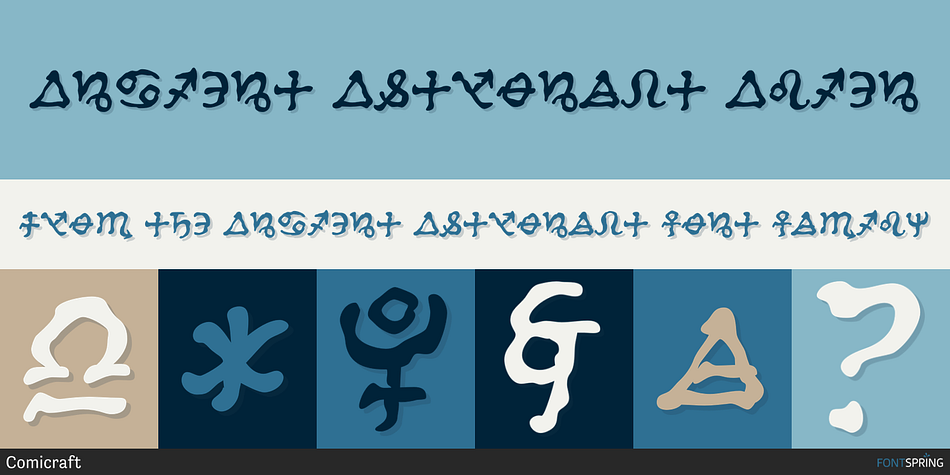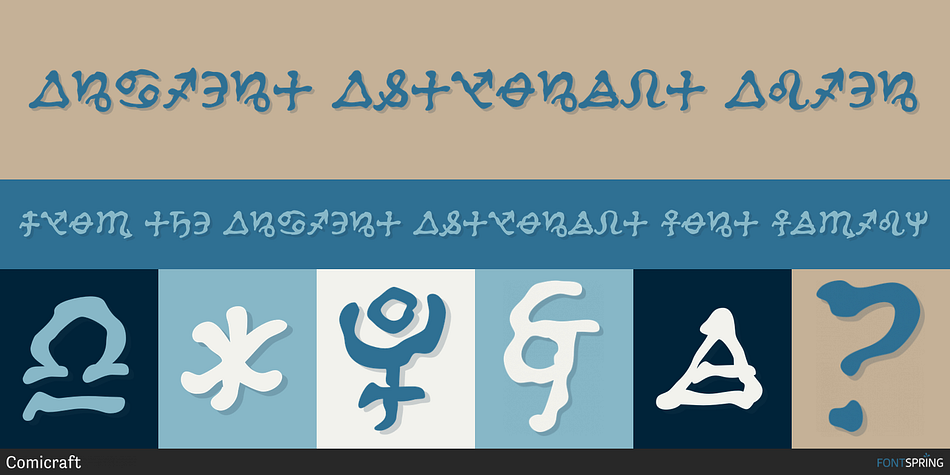
Ancient Astronaut Alien
Designed by John Roshell, Ancient Astronaut is a novelty and dingbat font family. This typeface has three styles and was published by Comicraft.
Are you in search of Ancient Astronauts? Extraterrestrial beings who came from the 12th planet to influence human cultures, technologies and religions? They’re here! They visited our Earth prehistorically and they didn’t just make contact with humans—they gave birth to our entire race!
Some believe they are a secret group of Reptiloids who still control humanity! Their agents live amongst us disguised as George W. Bush, Queen Elizabeth II, Kris Kristofferson and Lady Gaga. It’s true, we read it in Weekly World News.
These ancient aliens established divine status over primitive men and compelled them to build Stonehenge, Pumapunku, the Moai of Easter Island, the Great Pyramid of Giza, and the ancient Baghdad electric batteries. After all, if you’re stuck on Earth, you may as well have some big heads to look at and a source of power to jump start your flying saucer. And a font.